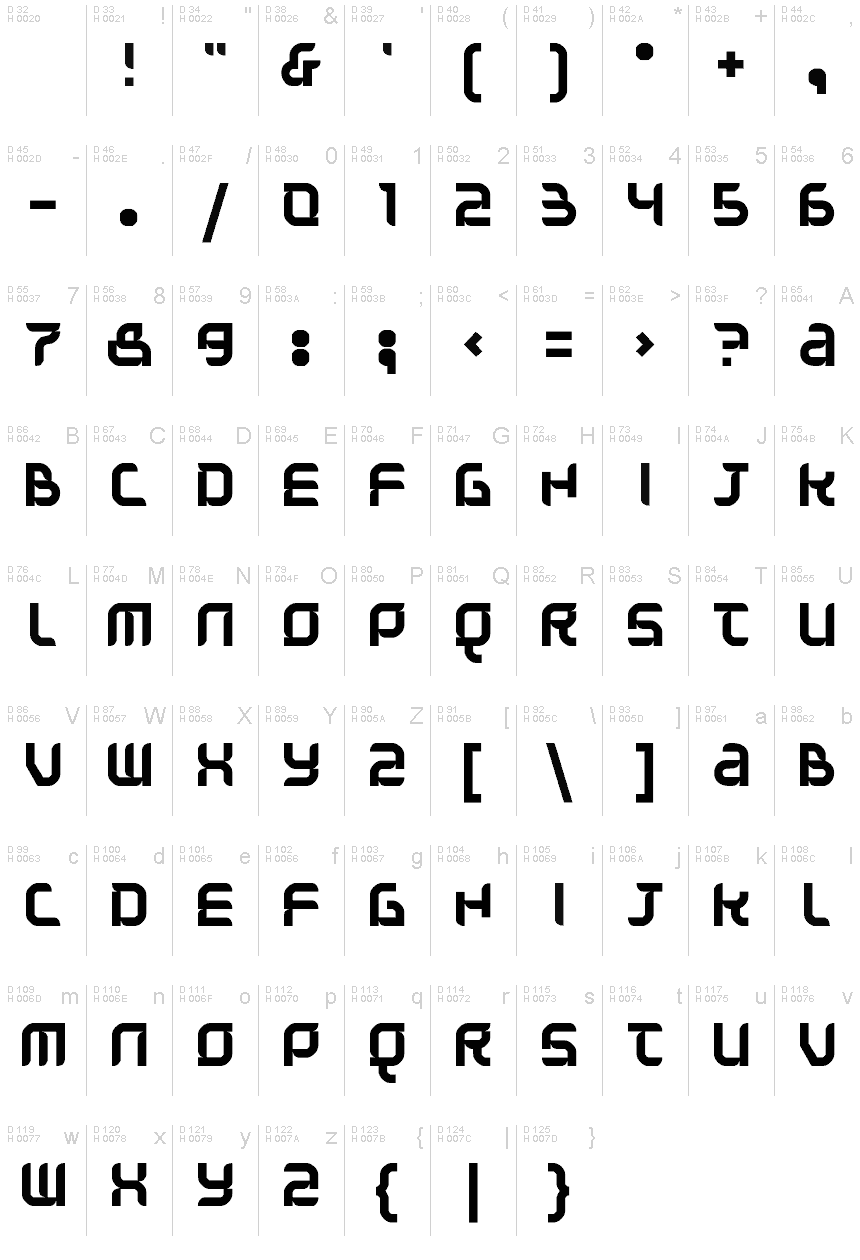
Question of time simple
Question of time simple, designed by Jakob Fischer, is a testament to the seamless blend of modernity and functionality. As a display font with a techno style, it exudes an aesthetic appeal that captivates the eye while maintaining high legibility. Its semi-expanded width offers a balanced presence on the page, neither overwhelming with boldness nor receding into the background.
The clean lines and precise geometry of Question of time simple make it an excellent choice for projects that require a touch of futuristic sophistication. Whether it's branding, poster design, or digital media applications, this font stands out for its versatility and stylish demeanor.
With its techno vibe, Question of time simple is particularly suitable for industries such as gaming, tech startups, or any creative endeavor looking to project a cutting-edge image. Embrace the unique character of this font to give your next project an unmistakable edge in both print and digital landscapes.